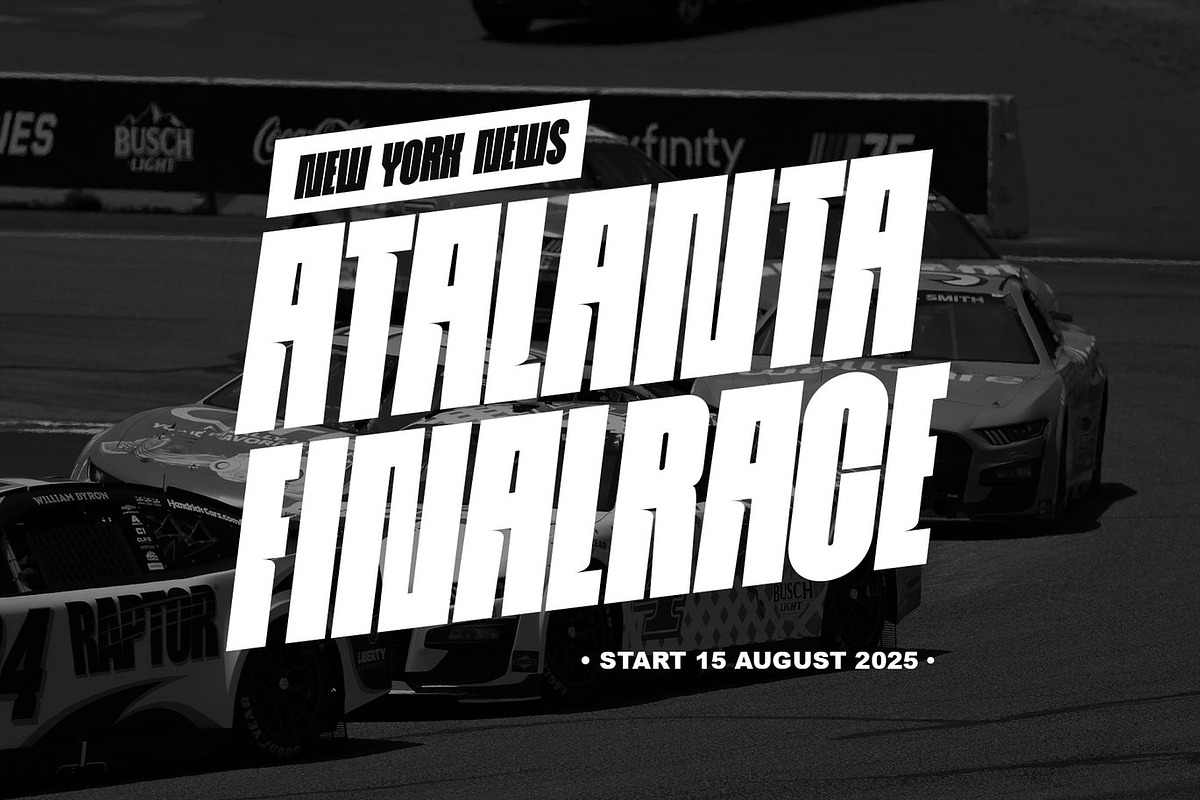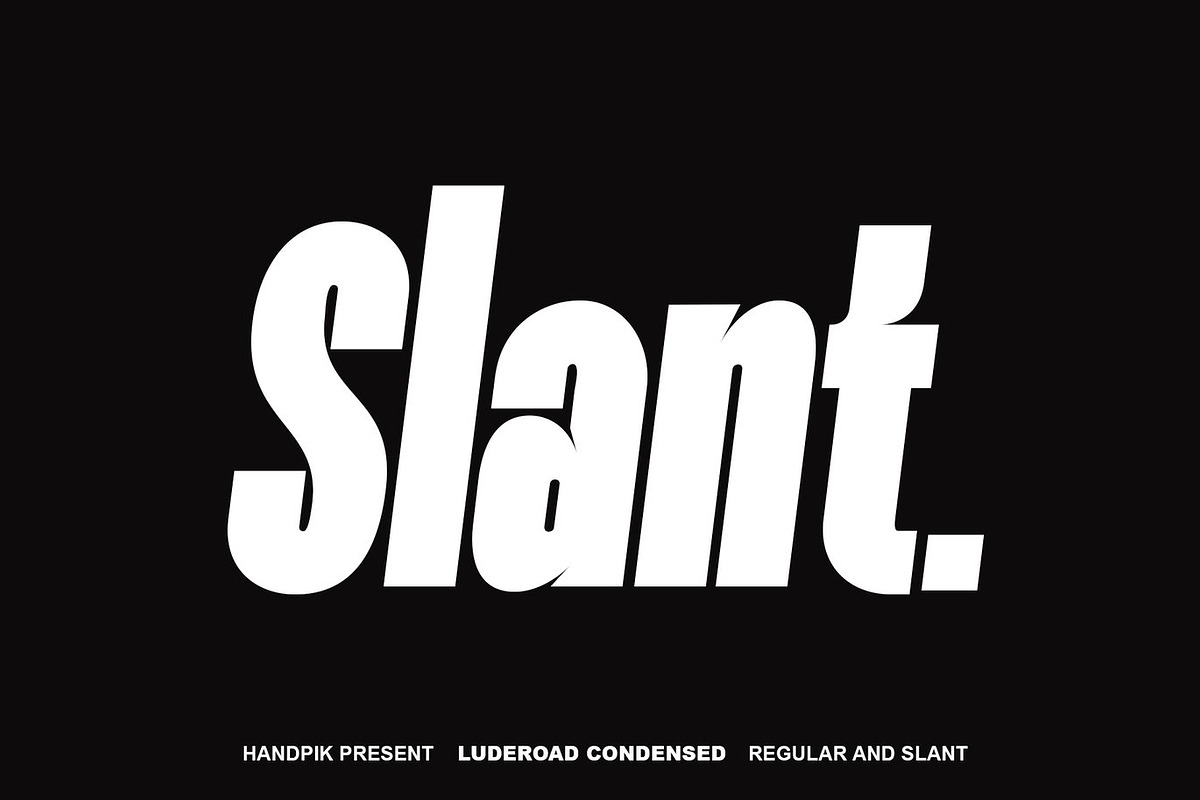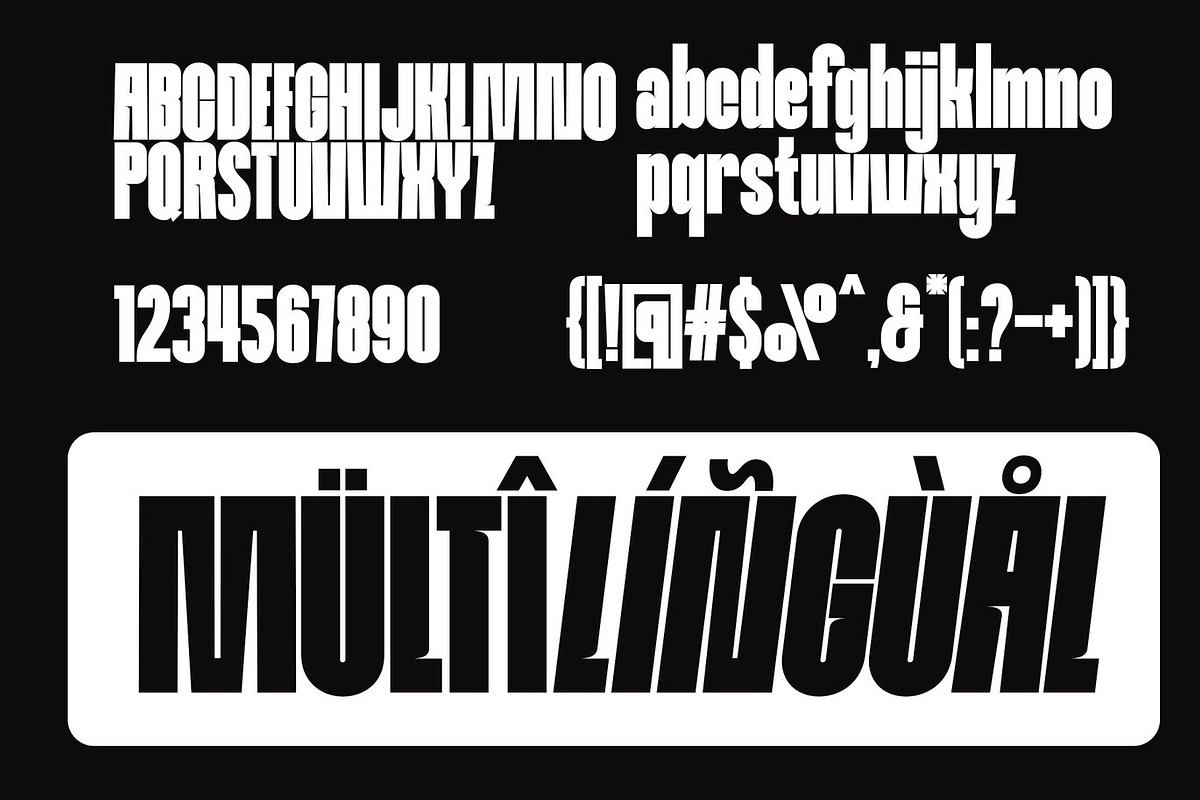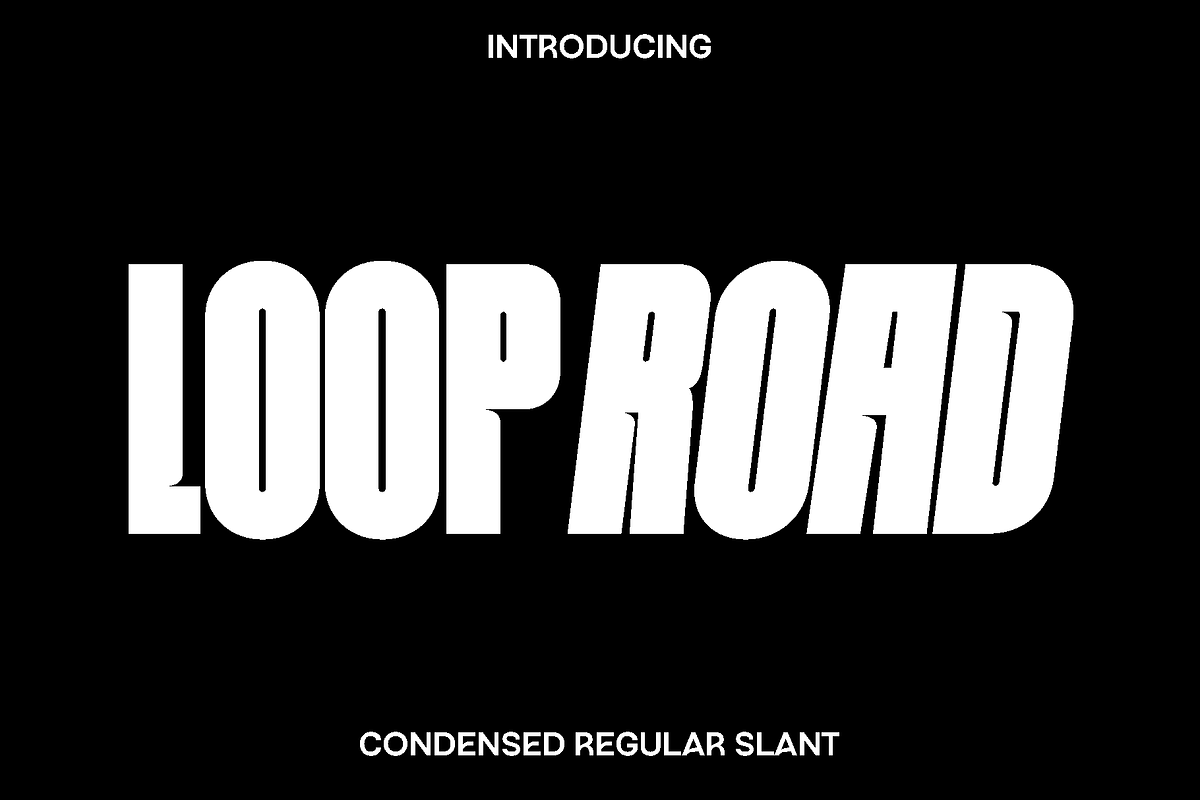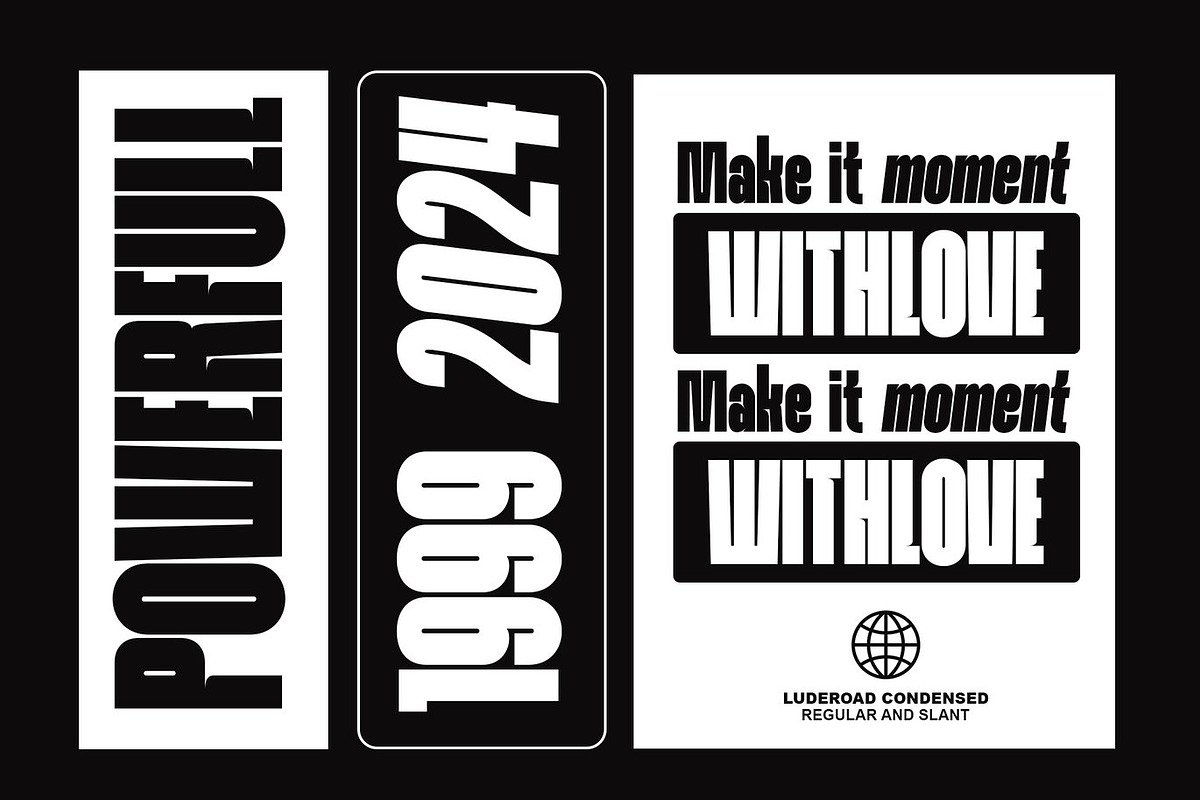
Looproad - Condensed Regular Slant
Looproad is a modern and expressive display font designed to bring personality and visual impact to creative typography. Inspired by contemporary design trends and bold typographic compositions, Looproad combines clean letterforms with a distinctive character that makes every word stand out. Its balanced structure and stylish details create a modern aesthetic that feels both professional and artistic.
This font is crafted for designers who want their text to communicate style and clarity at the same time. Looproad works beautifully in a wide range of design projects including books, magazines, branding, logos, photography overlays, quotes, blog headers, posters, and advertising materials. Its confident shapes and smooth rhythm help create typography that feels engaging, modern, and memorable.
Looproad shines especially well in headline compositions and visual branding where strong typography is essential. The Regular style provides a clean and stable foundation, while the Slant style adds movement and energy, allowing designers to create dynamic layouts with ease. Whether used for print or digital design, Looproad delivers a versatile and stylish typographic presence.
With its carefully crafted characters and functional design, Looproad is a valuable addition to any designer’s font collection. It helps transform simple text into visually compelling compositions that attract attention and communicate creativity.
Looproad Font Features:
• Uppercase and lowercase characters
• Numerals and functional punctuation
• Multilingual support
• Two styles included: Regular and Slant
• OpenType features
• Clean and versatile display letterforms
• Looproad Regular
• Looproad Slant